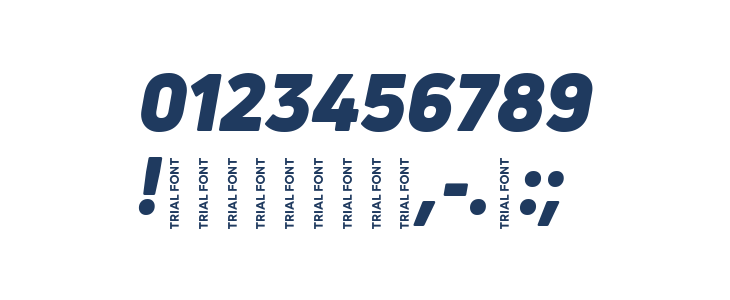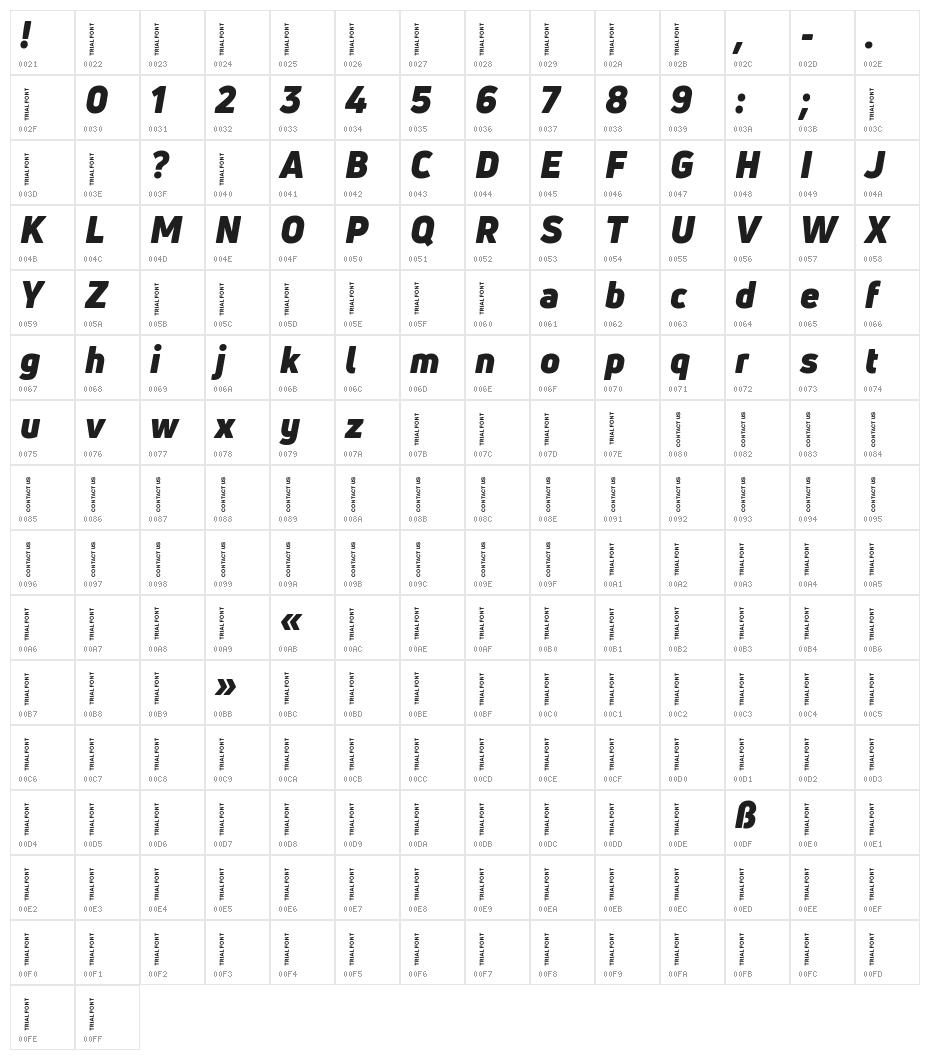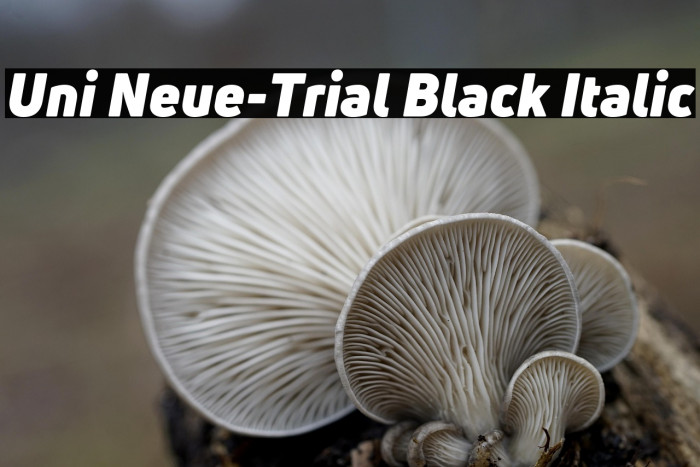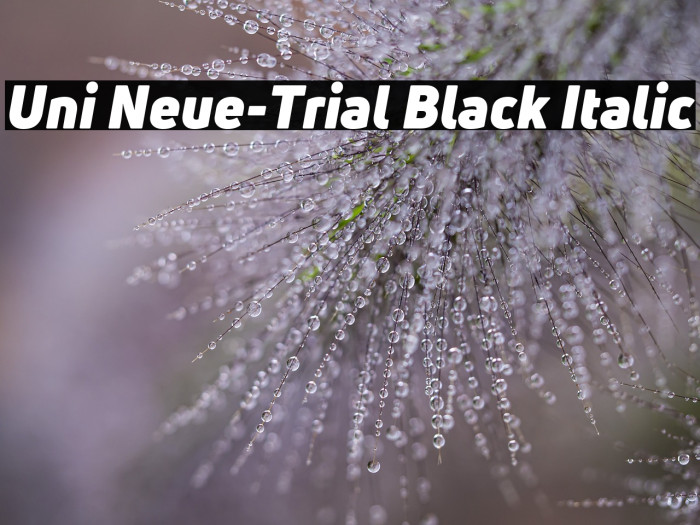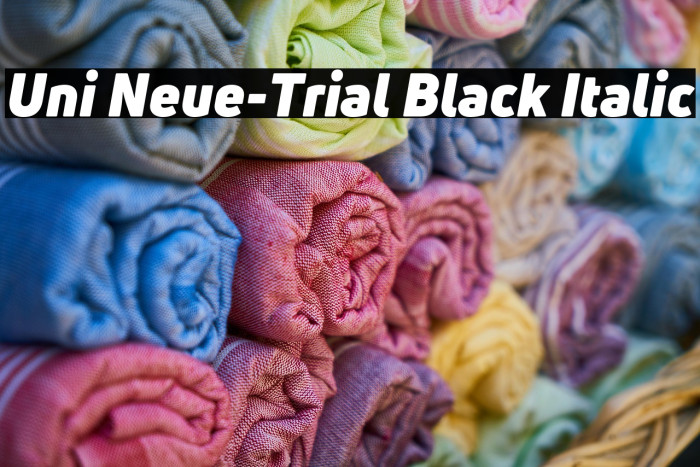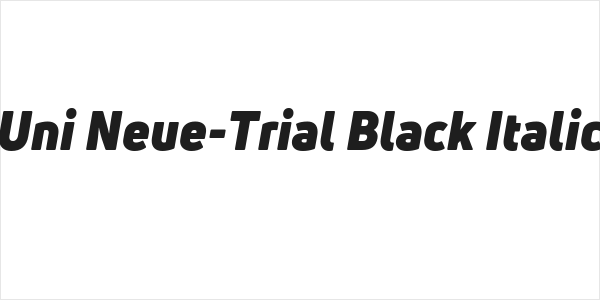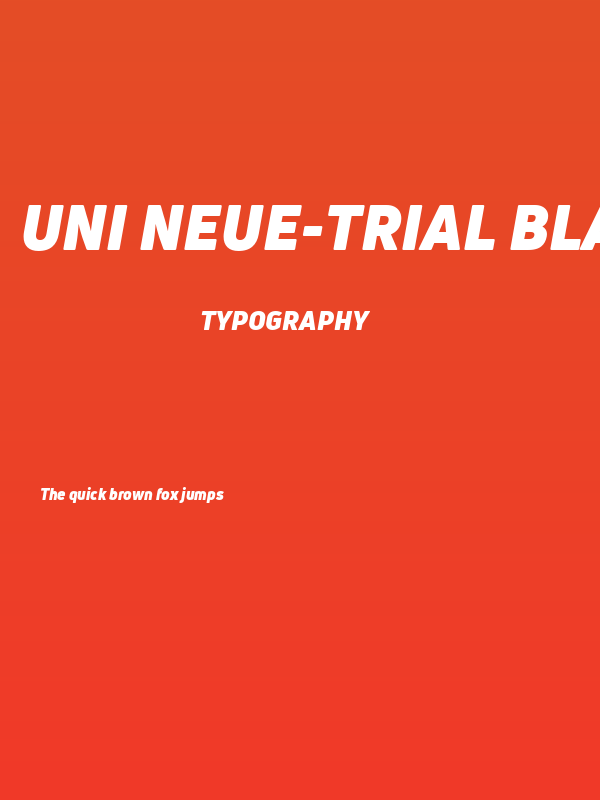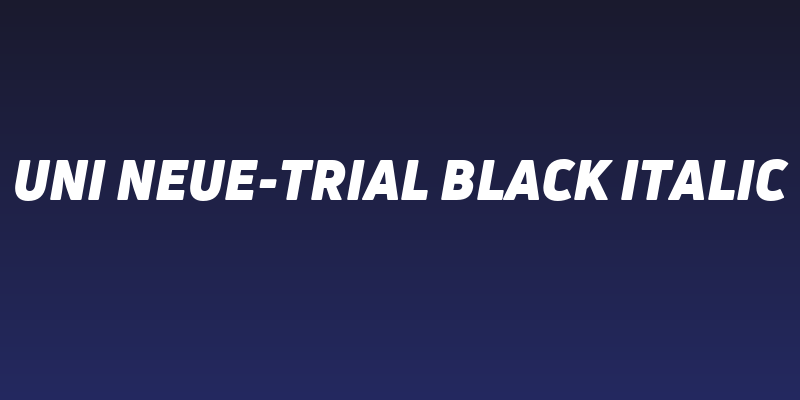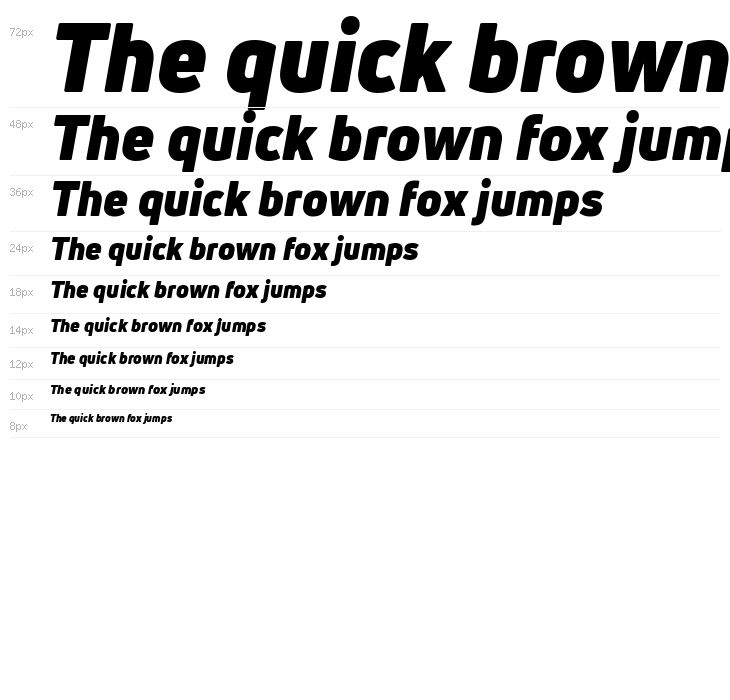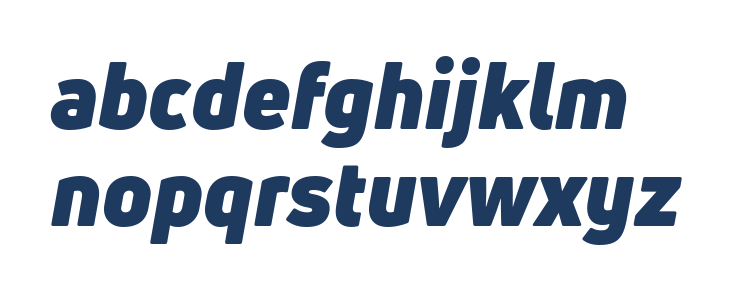
Uni Neue-Trial Black Italic Font
Uni Neue-Trial Black Italic Description
This font features a bold and dynamic design with a strong presence. The characters are slightly condensed, enhancing readability while maintaining a modern aesthetic. The italic style adds a sense of motion and fluidity, making it suitable for attention-grabbing headlines. The strokes are thick and consistent, providing a uniform appearance across all characters. The numbers and special characters are designed with the same boldness, ensuring consistency throughout. This font's clean lines and contemporary style make it versatile for various design applications.
| Proposed Projects | Ideal for branding, advertising, headlines, and modern web design projects. |